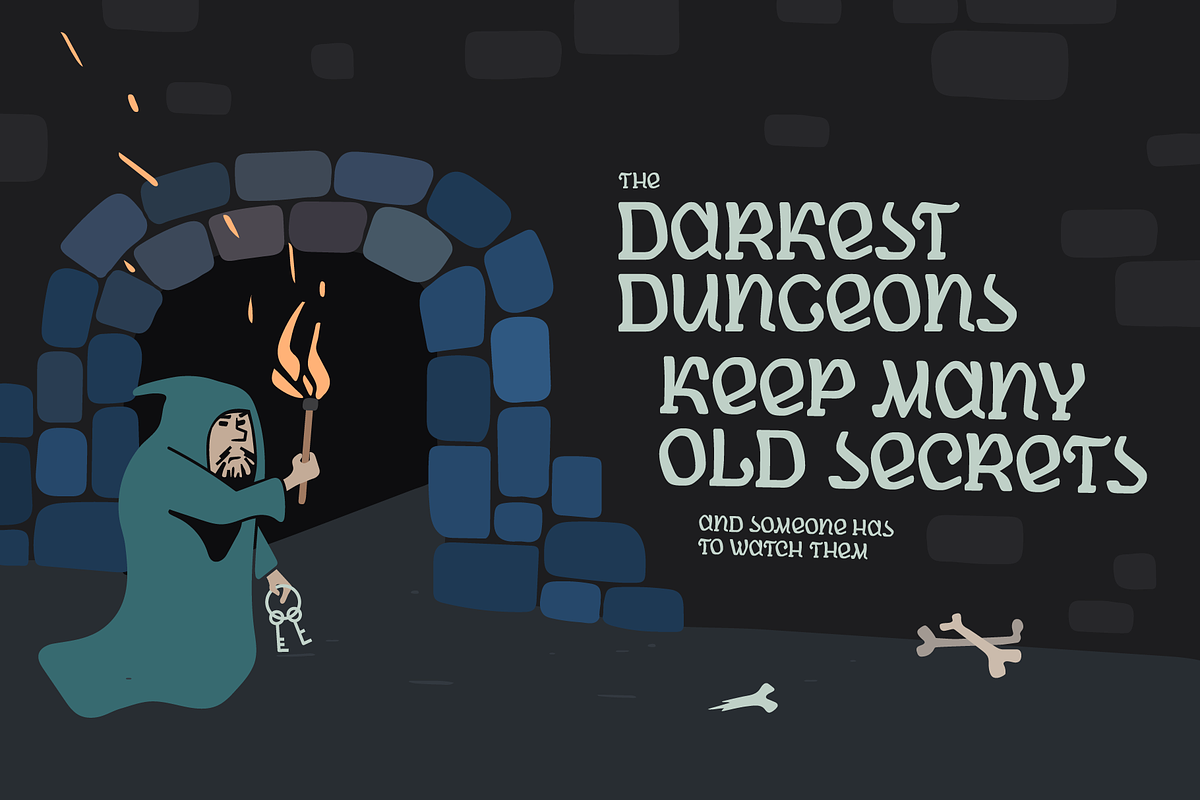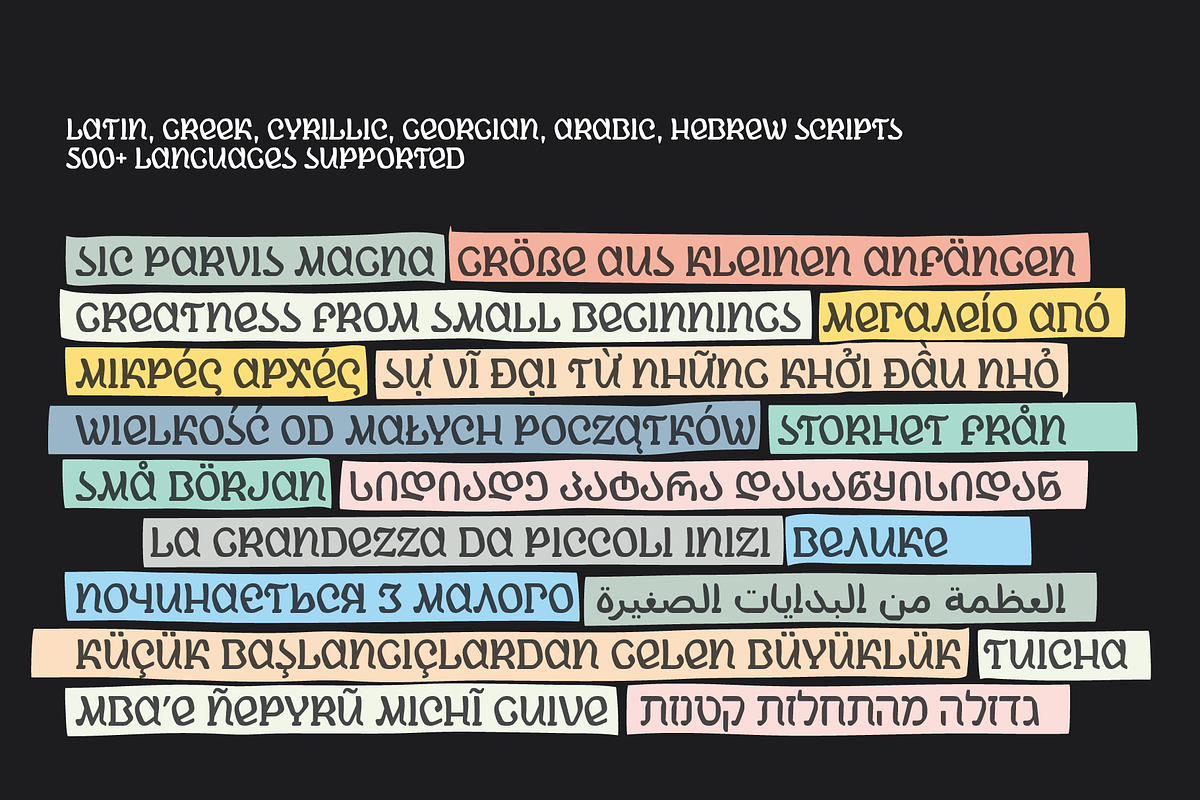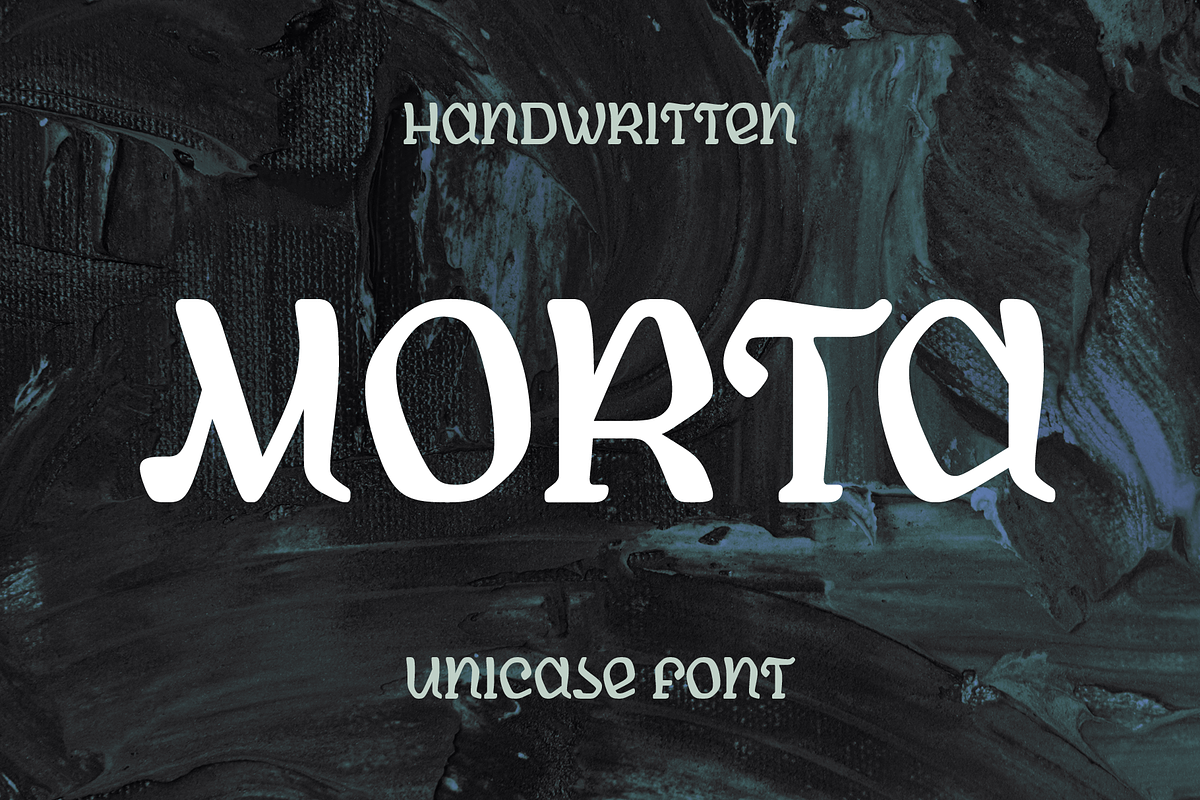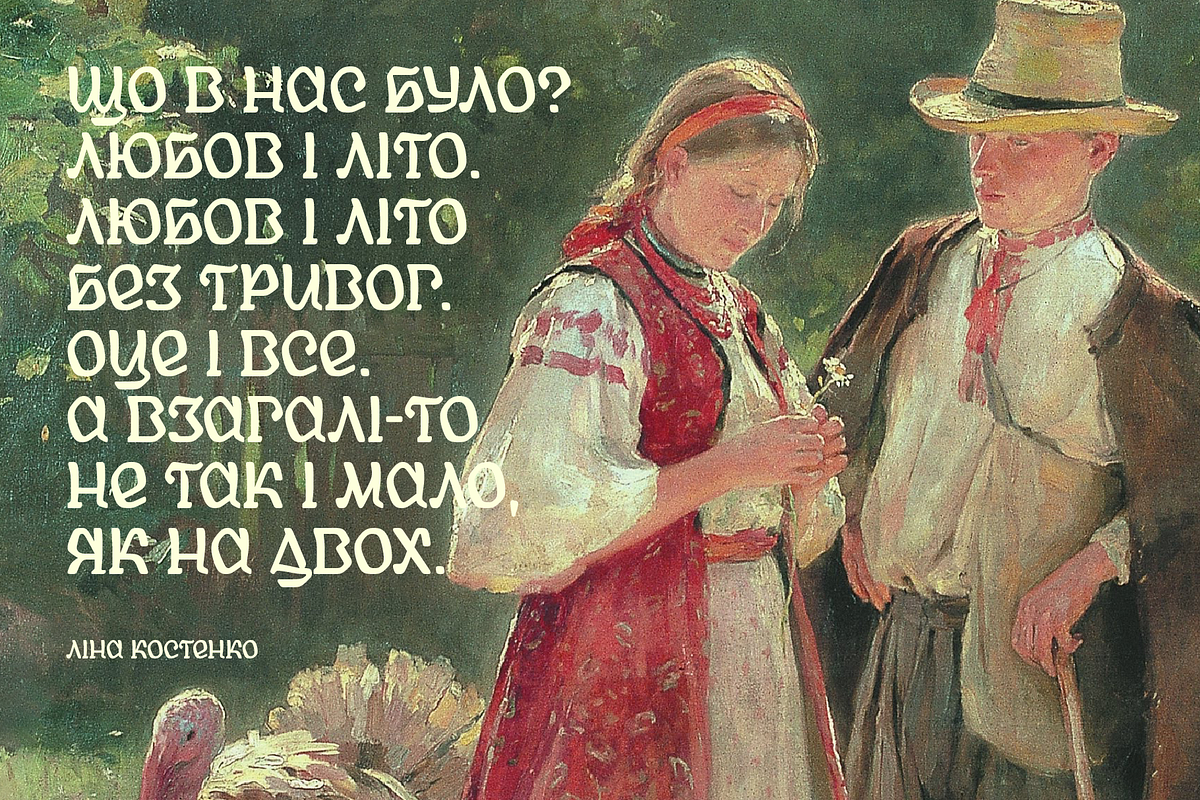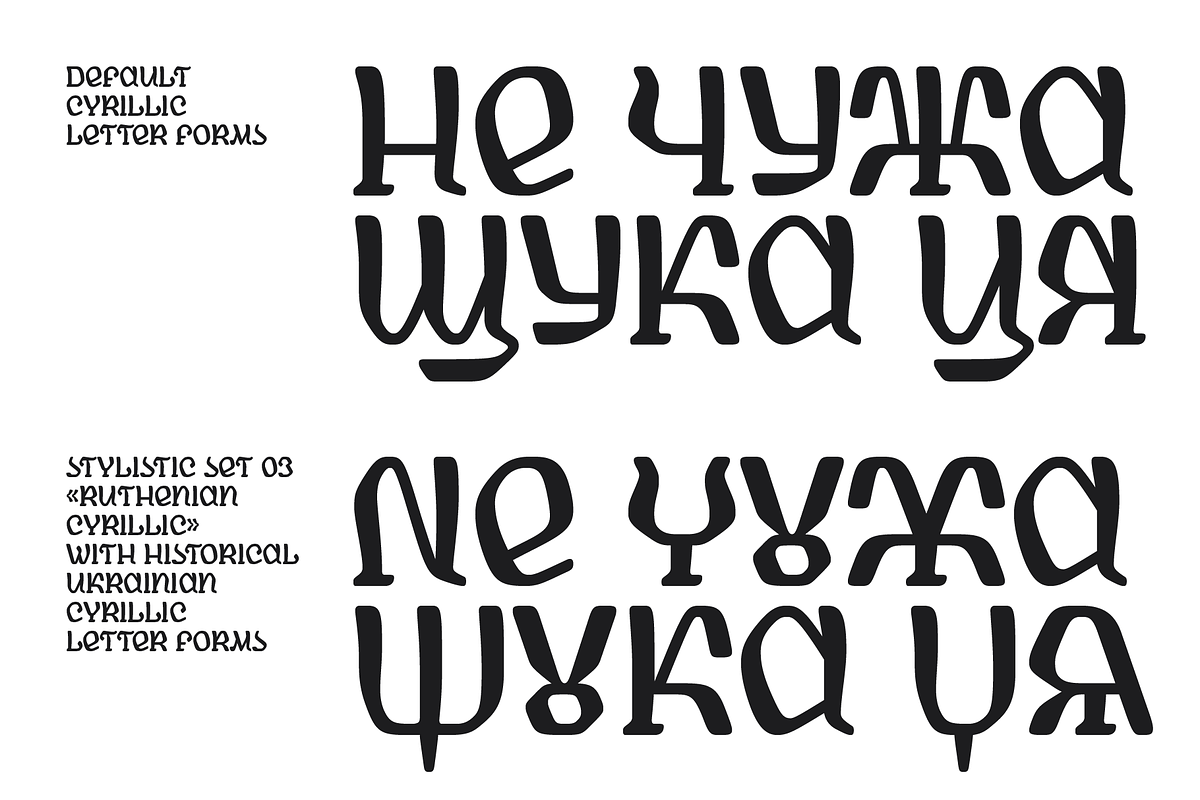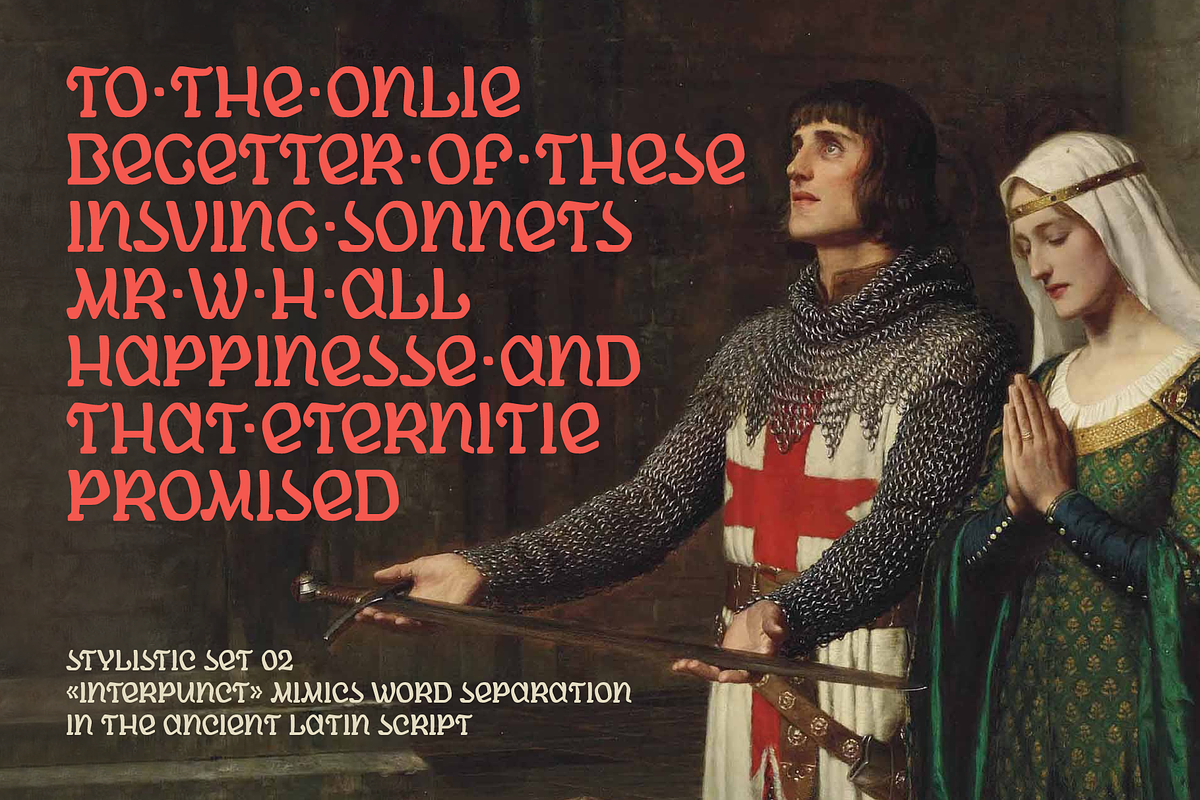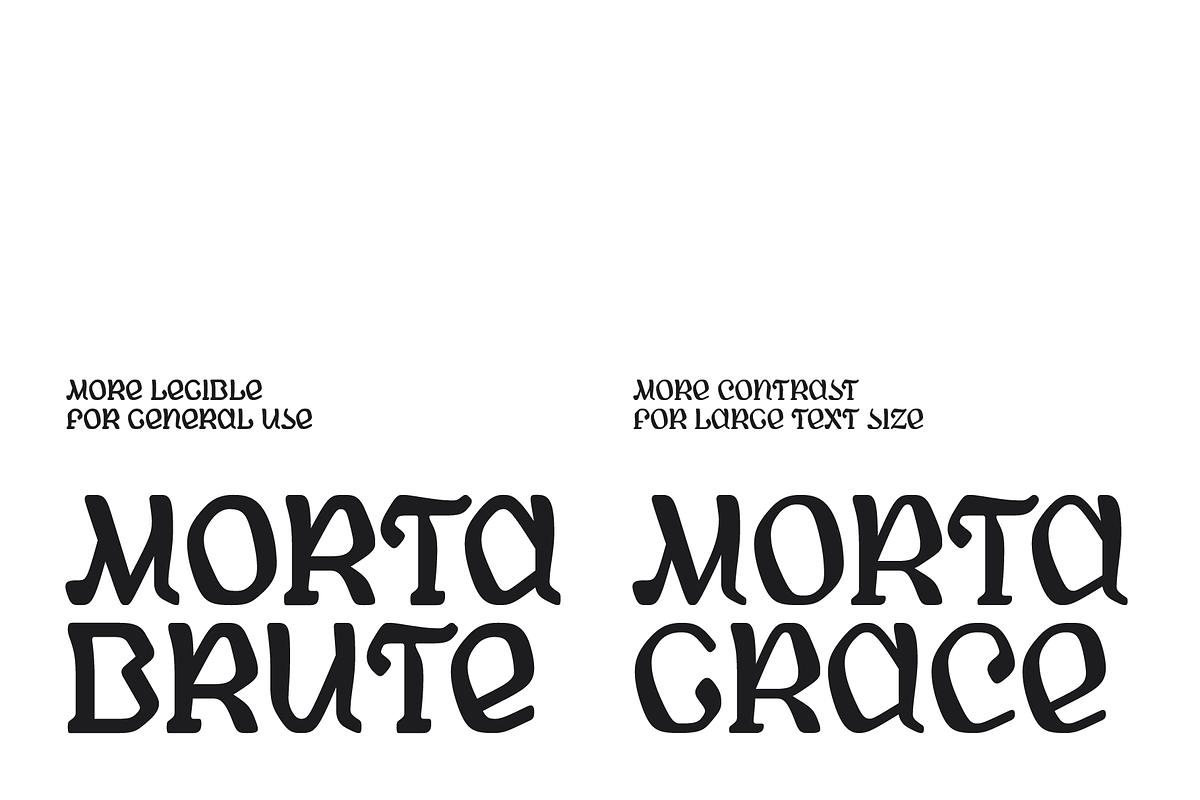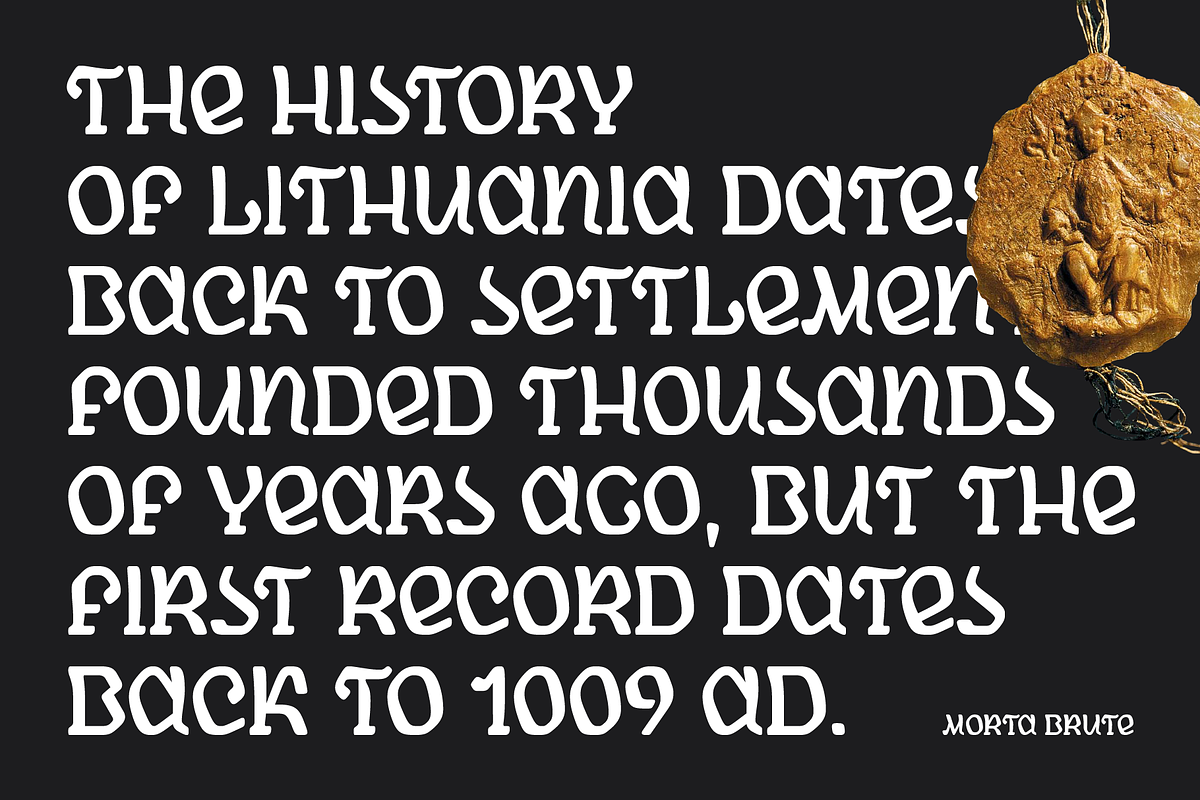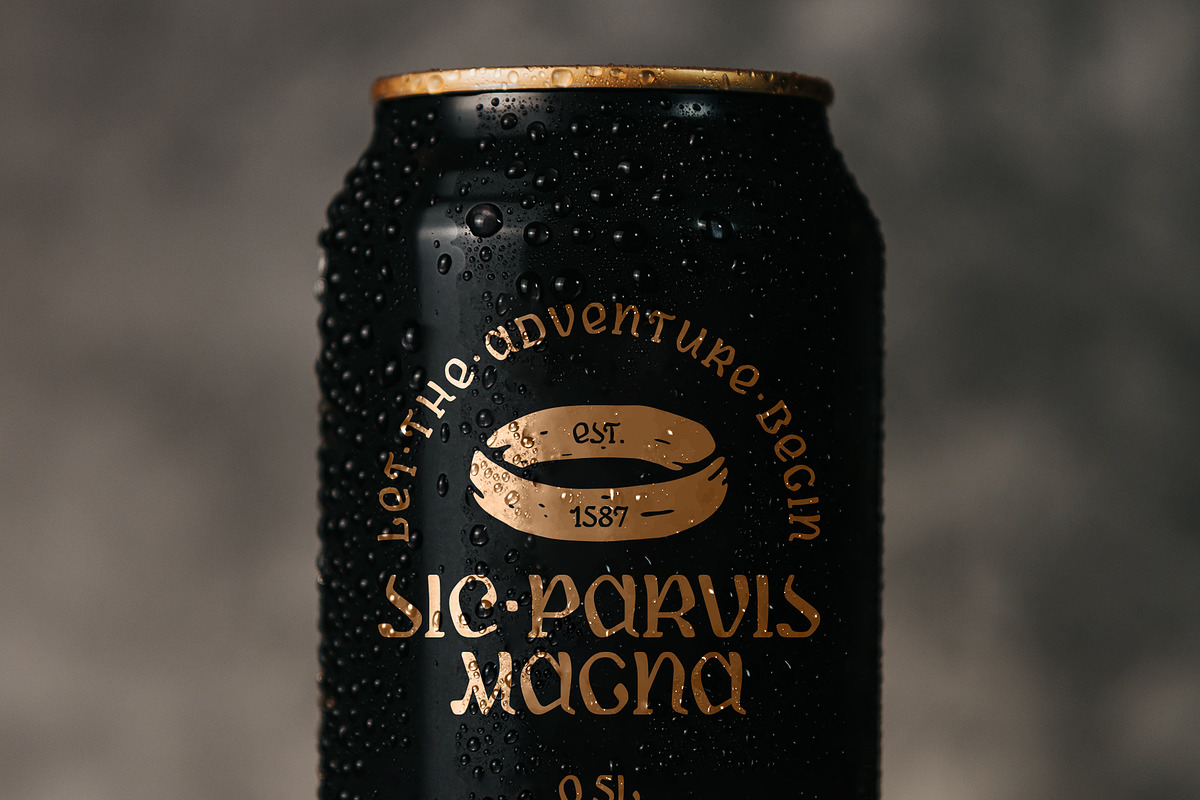
Morta font
Morta is a handwritten unicase typeface with a slight calligraphic influence. Its design, like a centuries-old cold dark stones, has carved edges and polished corners, and represented by two styles: more legible “Brute” for general use, and more contrast “Grace” for large text size.
While working on concept sketches, I synthesized such theses as historical and cartoon, mystical and attractive. What if I mirror the slant of an Italic writing in the other direction to create the feeling of looking from the other side, from behind the mirror? And if I use some calligraphic techniques and strokes? I worked to create a deliberately irregular shape with a minimal use of straight lines. At the same time, I avoided sharp corners in order to express the form chiseled by many centuries, like a stones polished by sea water. The Morta font is all about journey and unknown, so let the adventure begin!
Scripts: Latin, Greek, Cyrillic, Georgian, Arabic, Hebrew.
Glyphs: 1801
Unicase: The design combines the shapes of uppercase and some lowercase letters.
Stylistic Alternates: TtЗзЖжНнУуФфЦцЧчЩщЯя
Stylistic Set 02 “Interpunct”: All space characters are replaced with its alternate version that contains vertically centered dot that mimics word separation in the ancient Latin script.
Stylistic Set 03 “Ruthenian Cyrillic”: The letters ЖжНнУуФфЦцЧчЩщЯя are replaced with its historical Ukrainian Cyrillic forms. With respect to the project “Graphics of the Ukrainian language”.